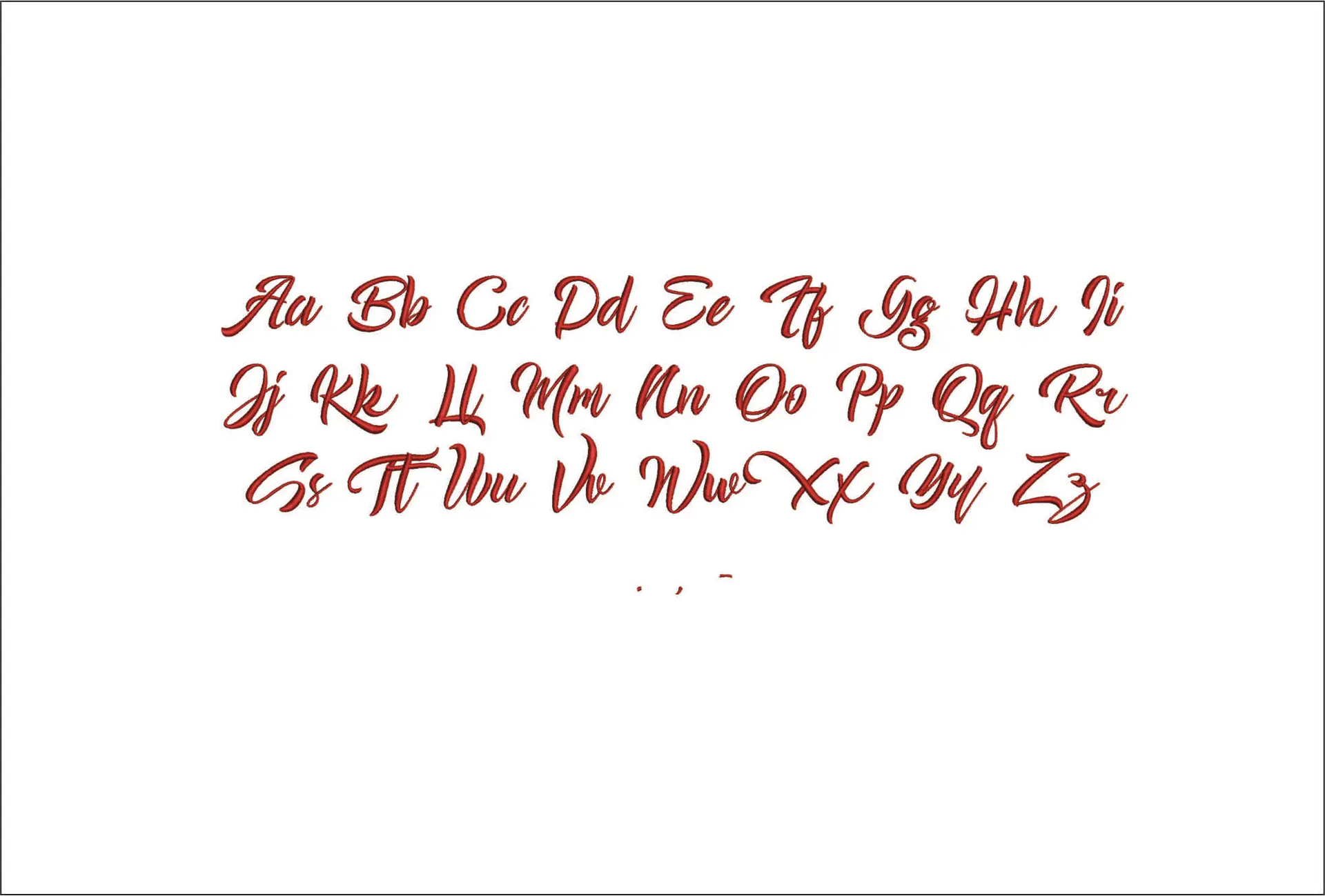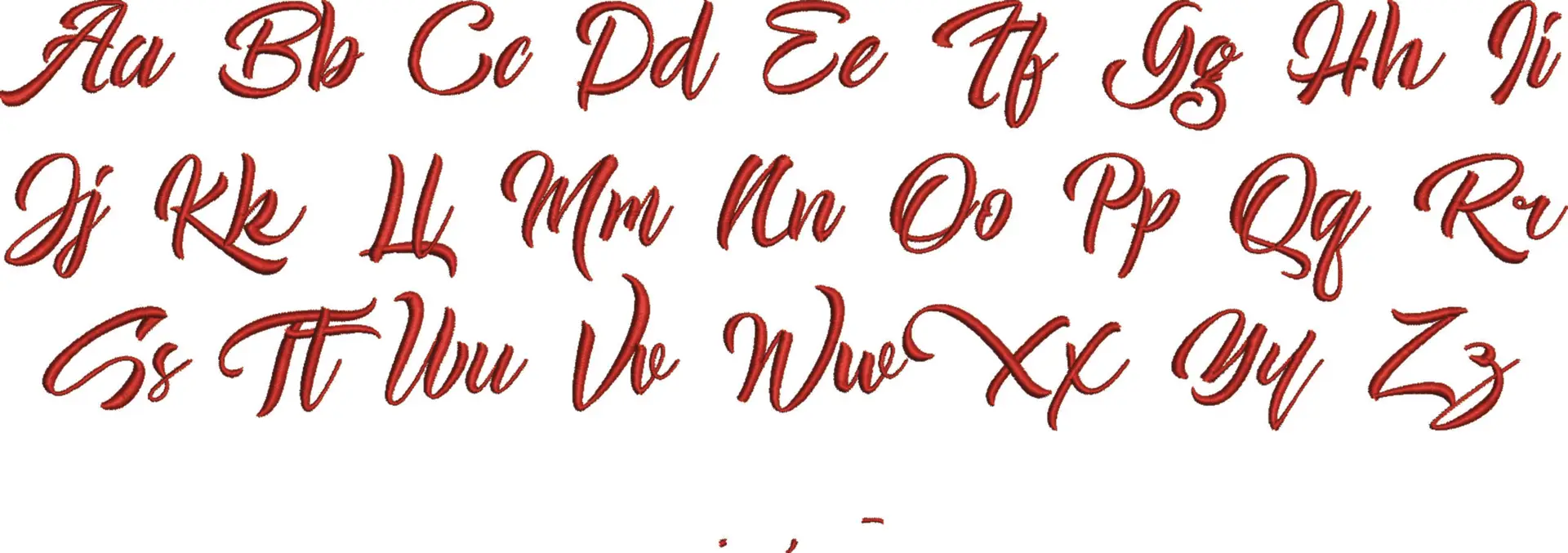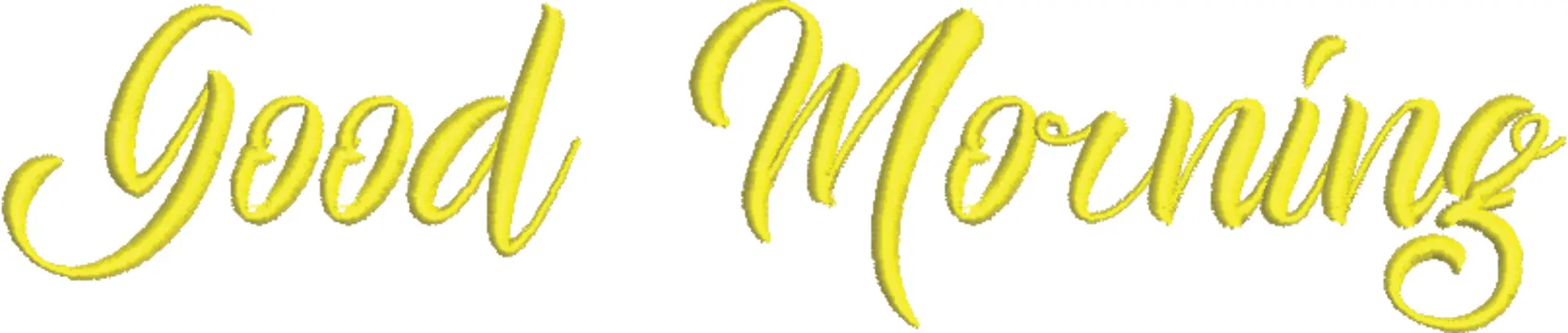
Good Morning Embroidery Font Set - 1" 1.5" 2" 2.5" 3" and 4" - Machine Embroidery Alphabet Font - instant download
An elegant script alphabet with flowing swashes that gives names, monograms and short phrases a polished handwritten feel.
With its graceful script, the Good Morning font set brings the look of neat modern calligraphy to machine embroidery. The sample shows both upper and lowercase letters stitched in a flowing cursive style, with decorative swashes that give initials and names a more finished, custom look. It suits makers who want softer, dressier lettering for monograms, christening gifts, bridal pieces or personalised accessories.
This is the kind of alphabet that looks especially at home on cotton napkins, linen pouches, baby blankets, robe cuffs and the corner of a hand towel. The letterforms are slim and connected, so short names, single initials and brief words read most clearly and keep that elegant sweep. If you like embroidery that feels handwritten rather than blocky, this set gives projects a refined, feminine finish.